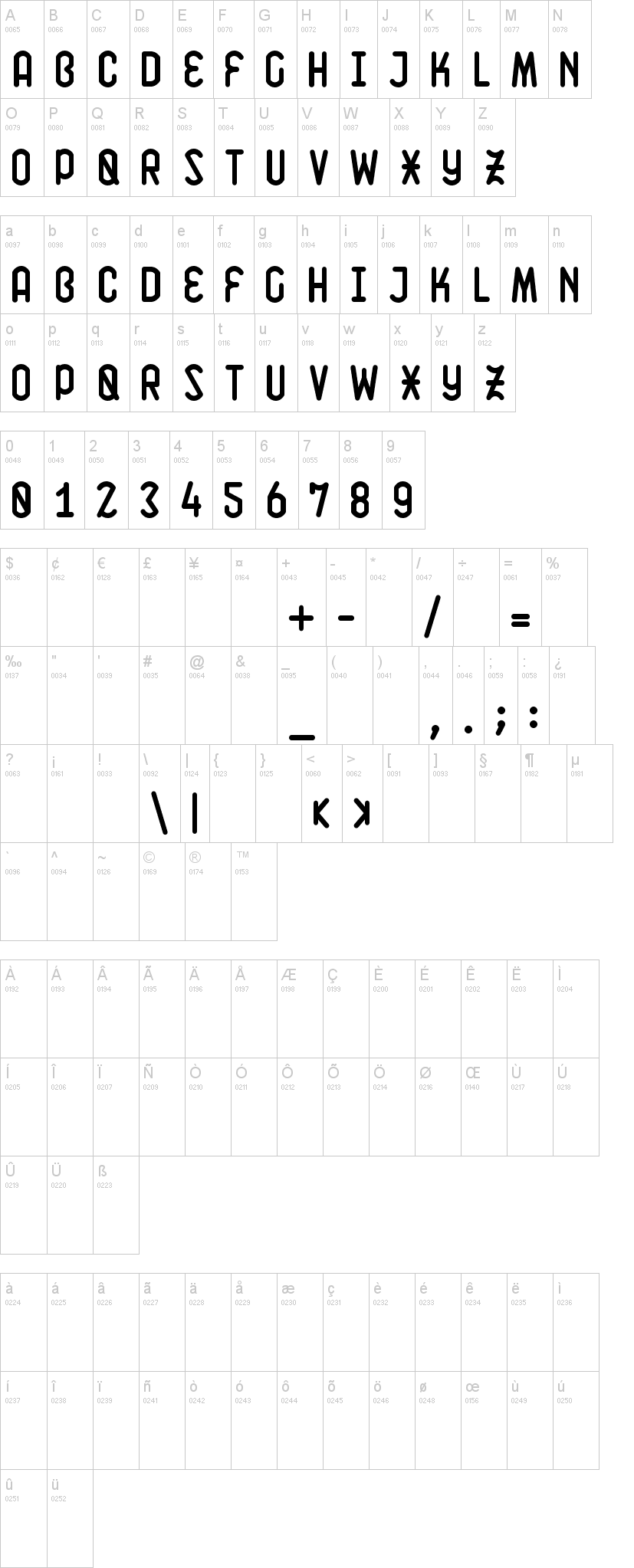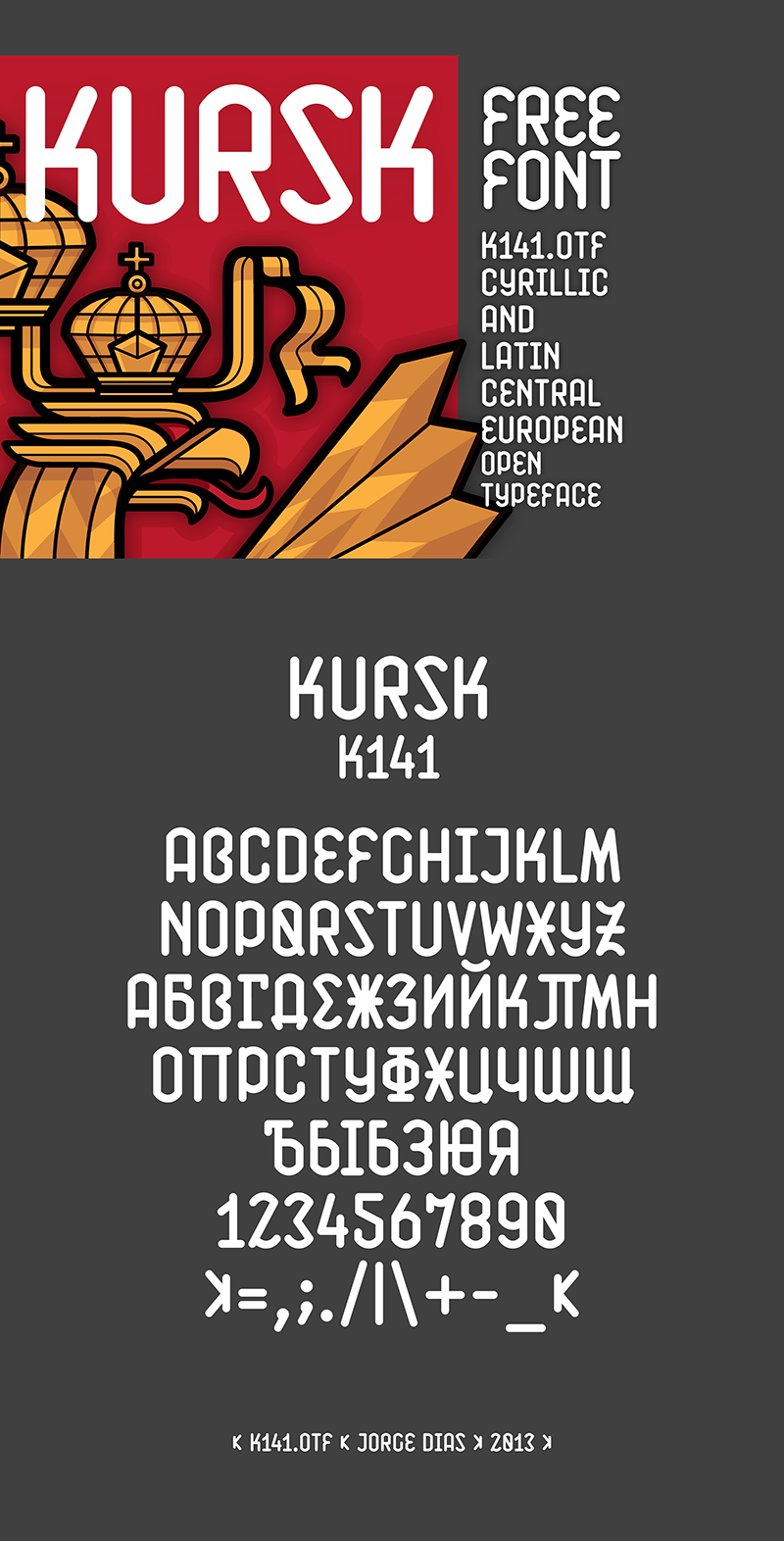
Шрифт K141
This is a submarine K141 Kursk project font, i hope you enjoy the font and the making of in www.behance.net/gallery/KURSK-K141-Free-Font/13344567 and give me a like or a appreciation if you like the project.